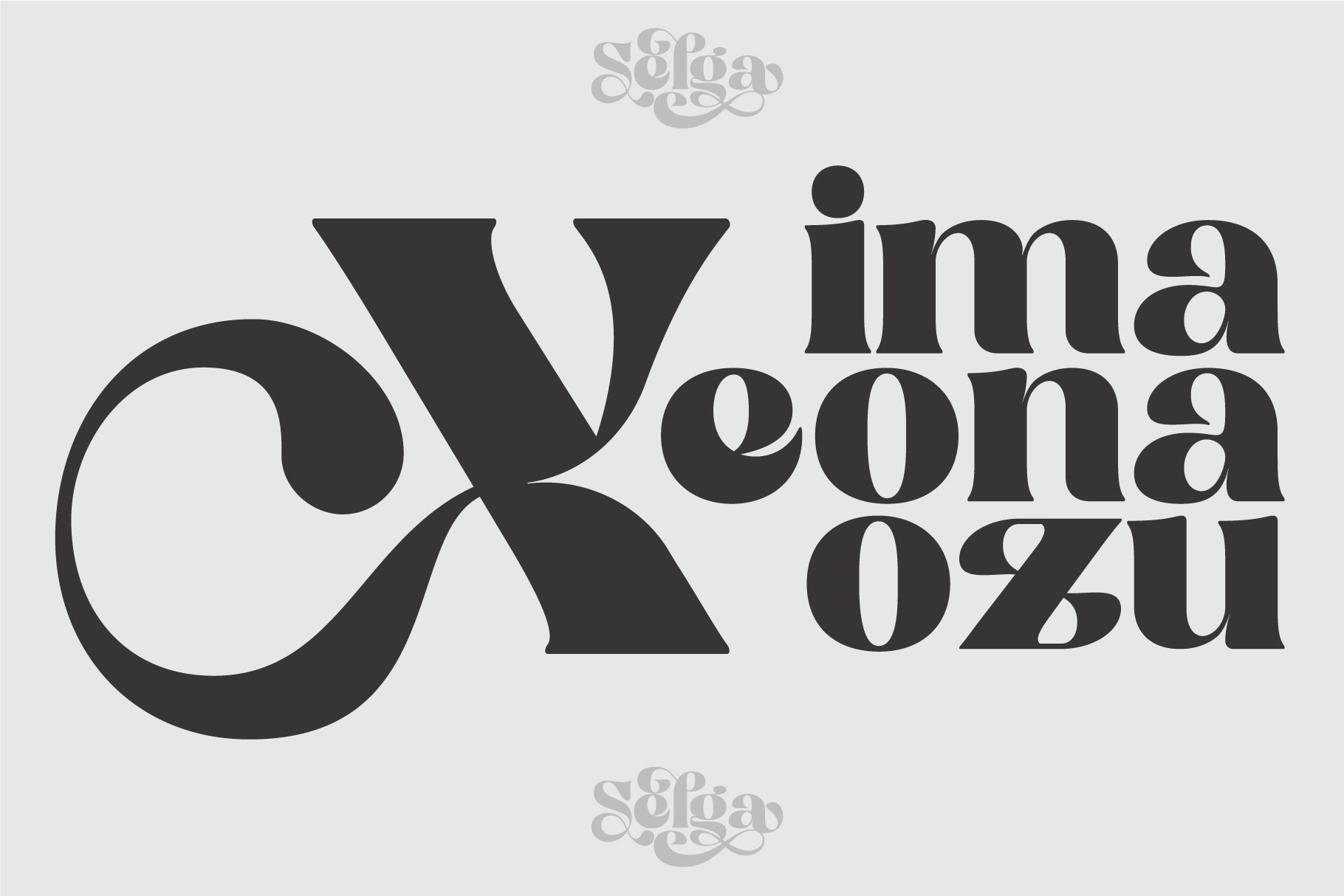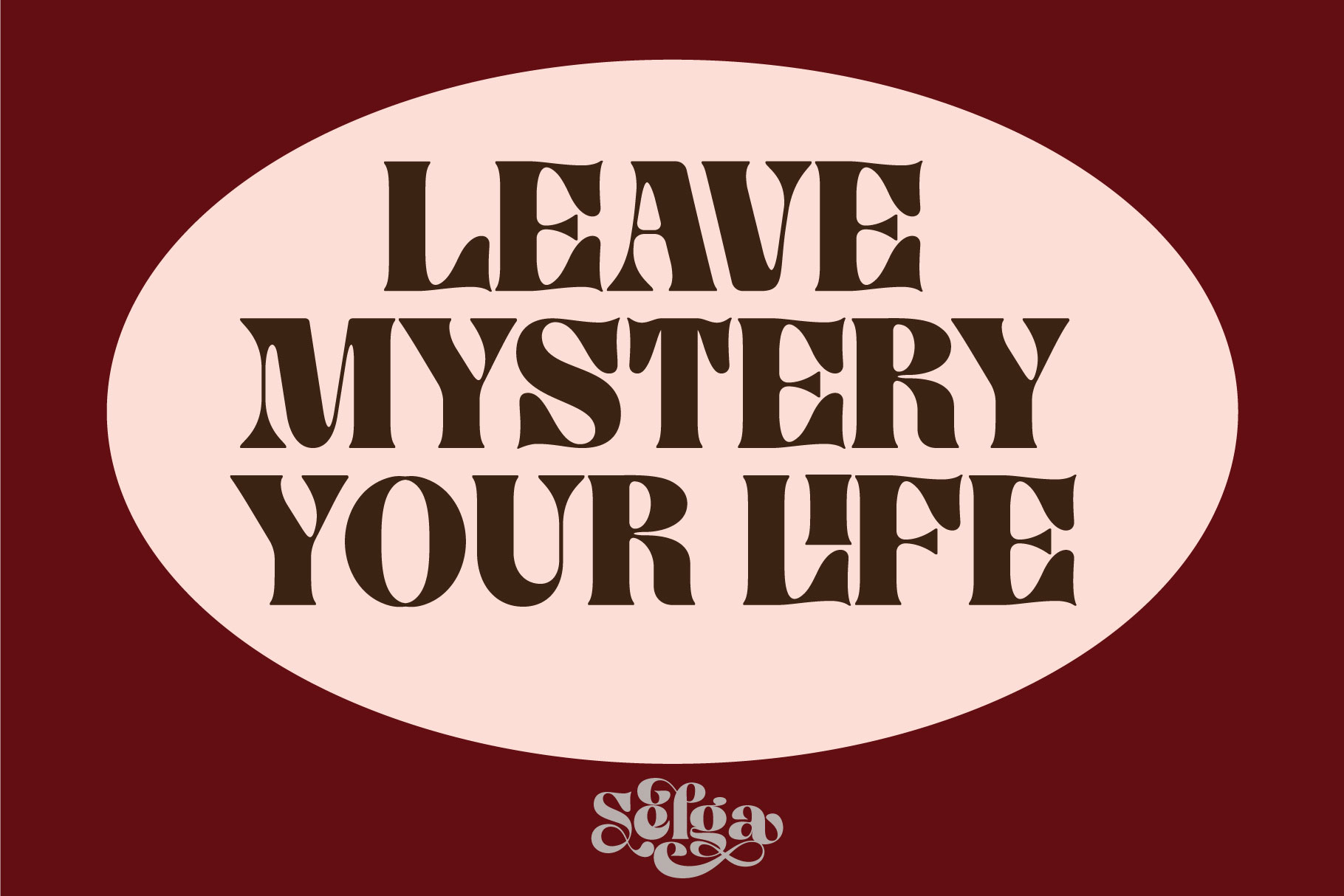
Selga Font
Selga Font – This is a retro display font style that takes the shape of flower petals and beautiful curves to form a font. Selga font can be used for products that are friendly to the environment, and love nature.
Selga Display Font with discretionary ligatures that give each word a different shape. Also contains a swash with an elegant, contrasting, and clean, perfect for logo designs, posters, and various types of promotional media.